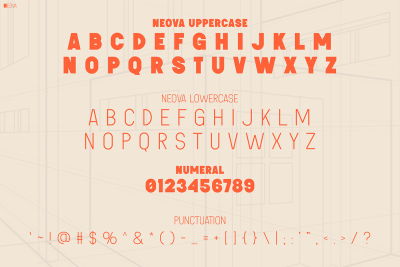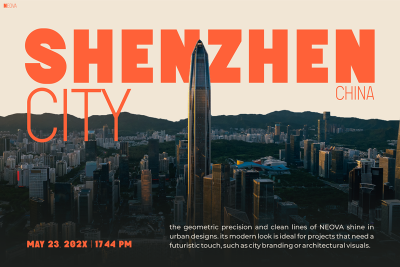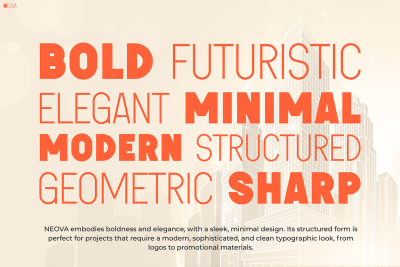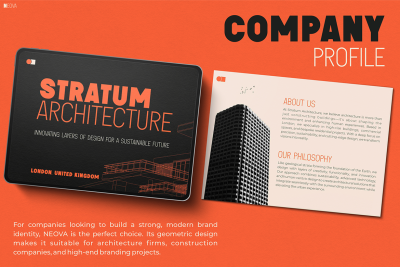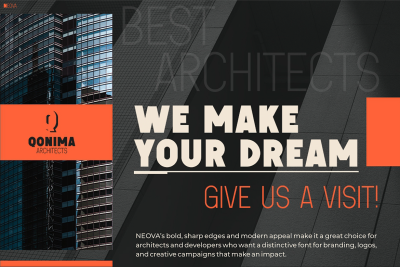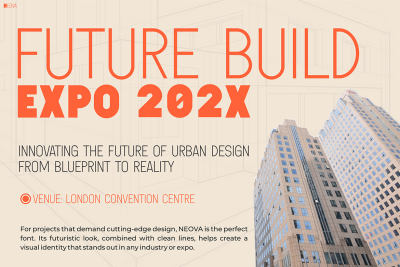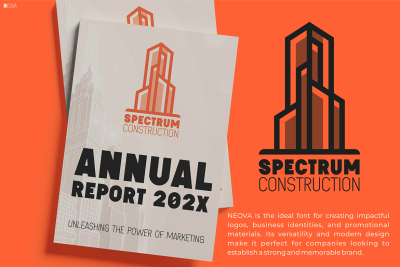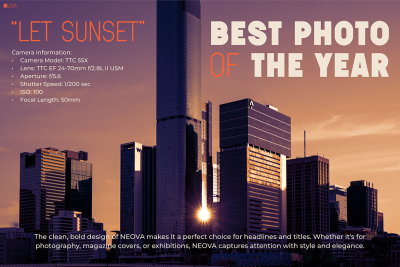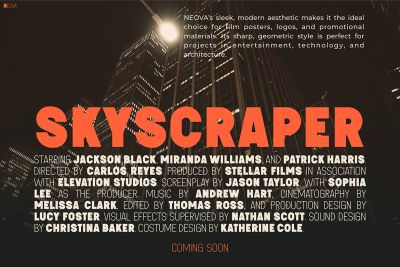
Futuristic Font Neova is a sleek, sharp, and modern typeface designed for impact. With its geometric structure and bold edges, it effortlessly embodies innovation, confidence, and progress. Whether you need a font for branding, architecture, technology, or high-end marketing, Neova ensures a strong and futuristic visual identity.
Inspired by contemporary skyscrapers and modern engineering, Neova features clean lines and precise angles. As a result, it delivers a striking presence, making it perfect for headlines, logos, and digital displays. Additionally, the fontโs sharp contrast and bold letterforms enhance clarity and sophistication, allowing any message to stand out effortlessly.
Furthermore, Neova blends futuristic aesthetics with timeless functionality. It works seamlessly across both print and digital platforms, ensuring excellent readability and design consistency. Its bold yet elegant style makes it a powerful choice for professionals, creatives, and brands that want to exude strength and innovation.
Who Should Use Futuristic Font Neova?
โ Architects & Real Estate Developers โ Neovaโs clean, structured lines perfectly reflect the precision of modern architecture. Whether for branding firms, project presentations, or urban development marketing, this font adds a professional touch.
โ Tech Companies & Startups โ Since it has a futuristic and innovative feel, Neova is ideal for AI brands, software companies, and high-tech product launches. It reinforces a sense of progress and cutting-edge technology.
โ Corporate & Business Professionals โ The fontโs bold structure naturally enhances corporate branding, presentations, and high-end business materials. As a result, it communicates professionalism, authority, and modernity with ease.
โ Luxury & High-End Brands โ Neova adds a sophisticated touch to premium brands in fashion, automotive, and lifestyle industries. Whether for product packaging, logos, or promotional campaigns, its sleek design enhances brand appeal.
โ Creative Designers & Digital Artists โ Those seeking a futuristic and bold aesthetic will find Neova perfect for web design, editorial layouts, and branding projects. Moreover, its versatility ensures a dynamic and polished look.
In conclusion, Futuristic Font Neova is more than just a typefaceโitโs a statement of modernity, precision, and sophistication. Whether youโre working on business, tech, or creative projects, Neova gives your designs a strong and futuristic edge.